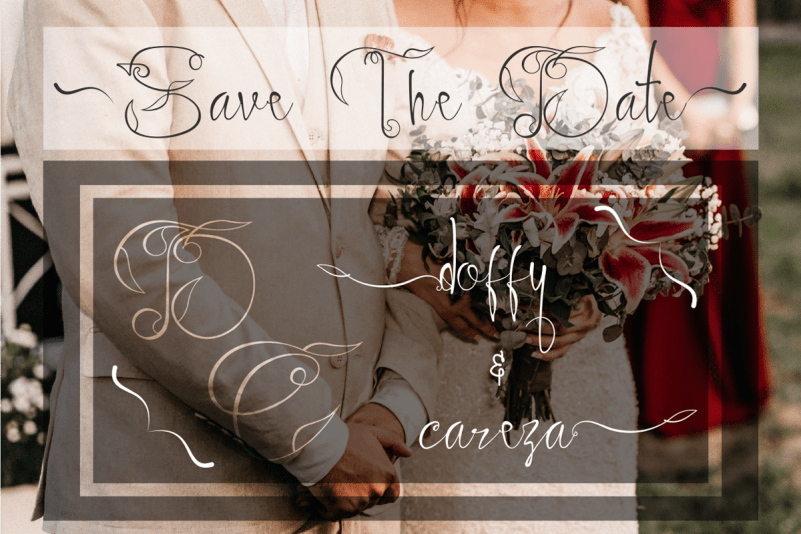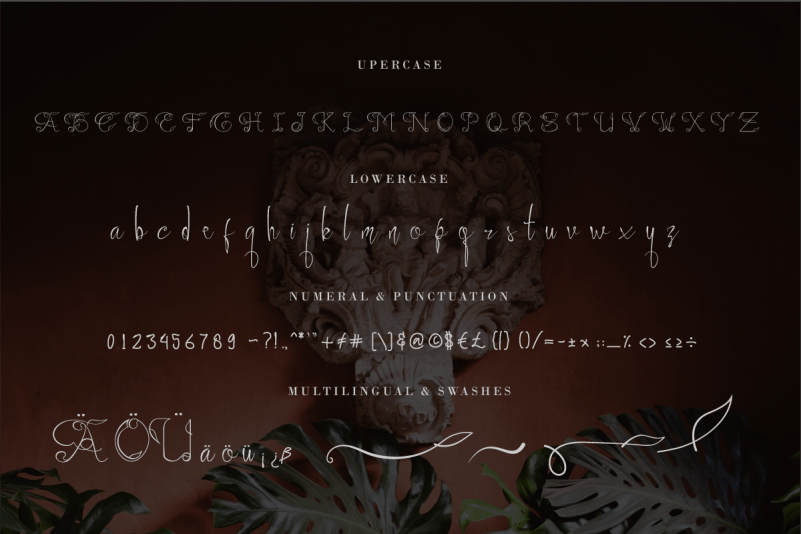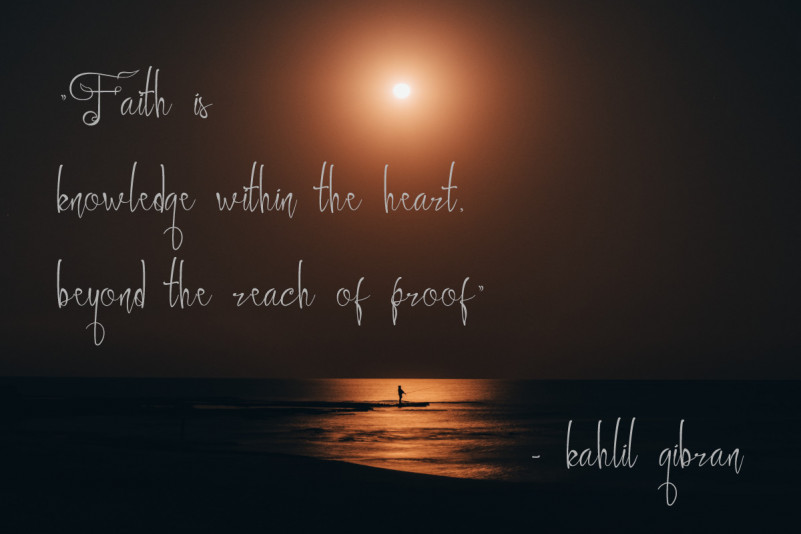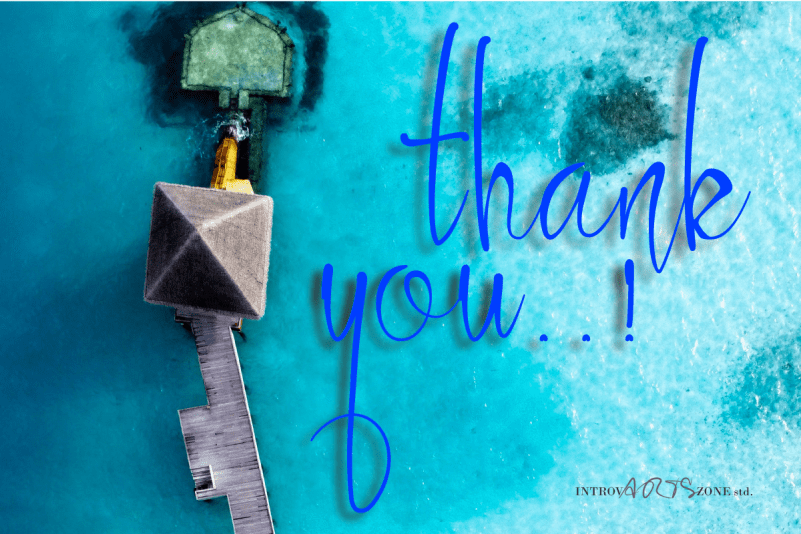
Ayuningtyas Script Font
Introducing Ayuningtyas Handwritten Font Script, Ayuningtyas in the Java language has a beautiful meaning, inspiration from the name of the font is made.
Ayuningtyas Handwritten Font Script can be used for various purposes such as wedding invitation, graphic design, print design, web design, logo, branding, and others.